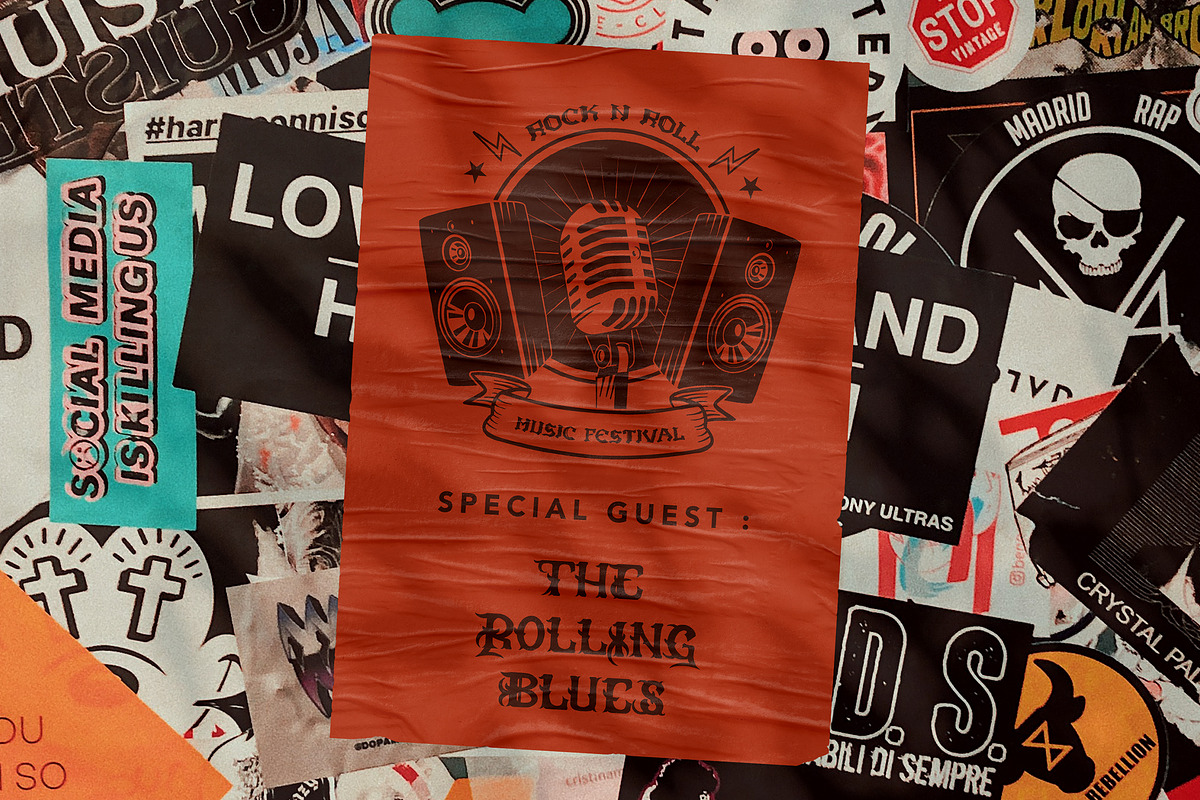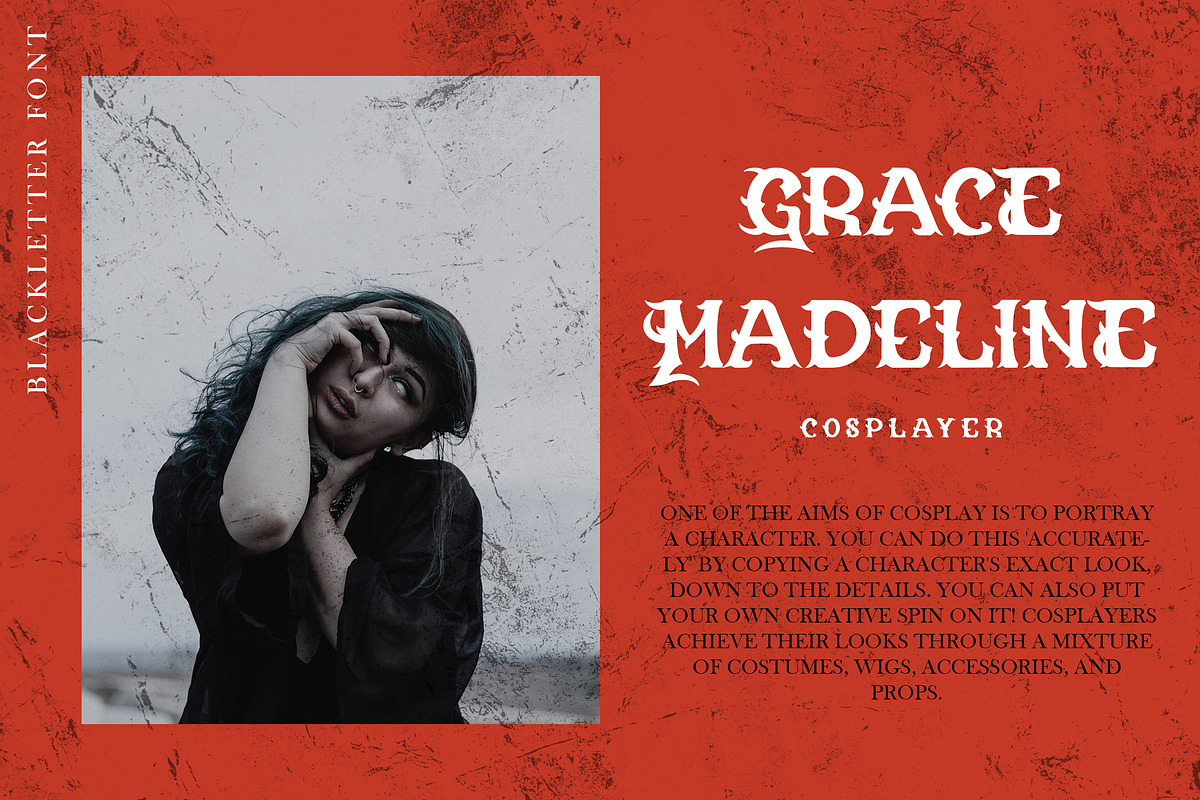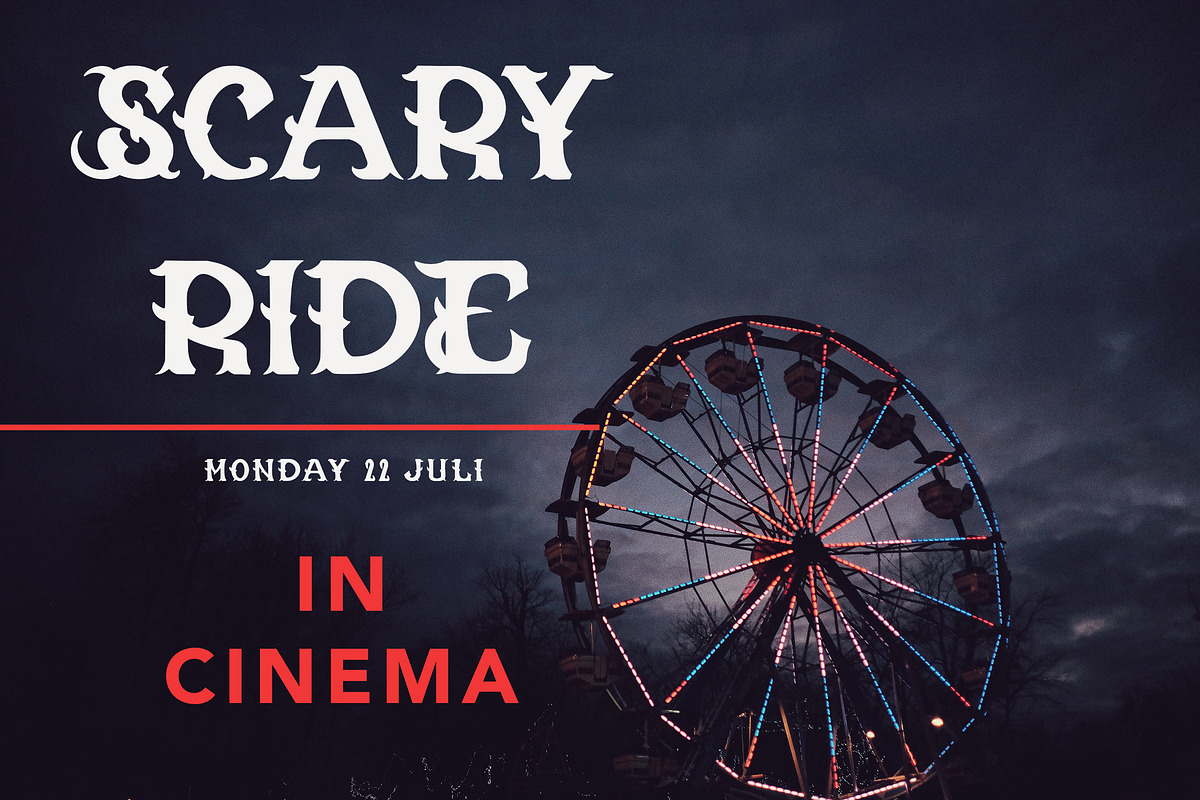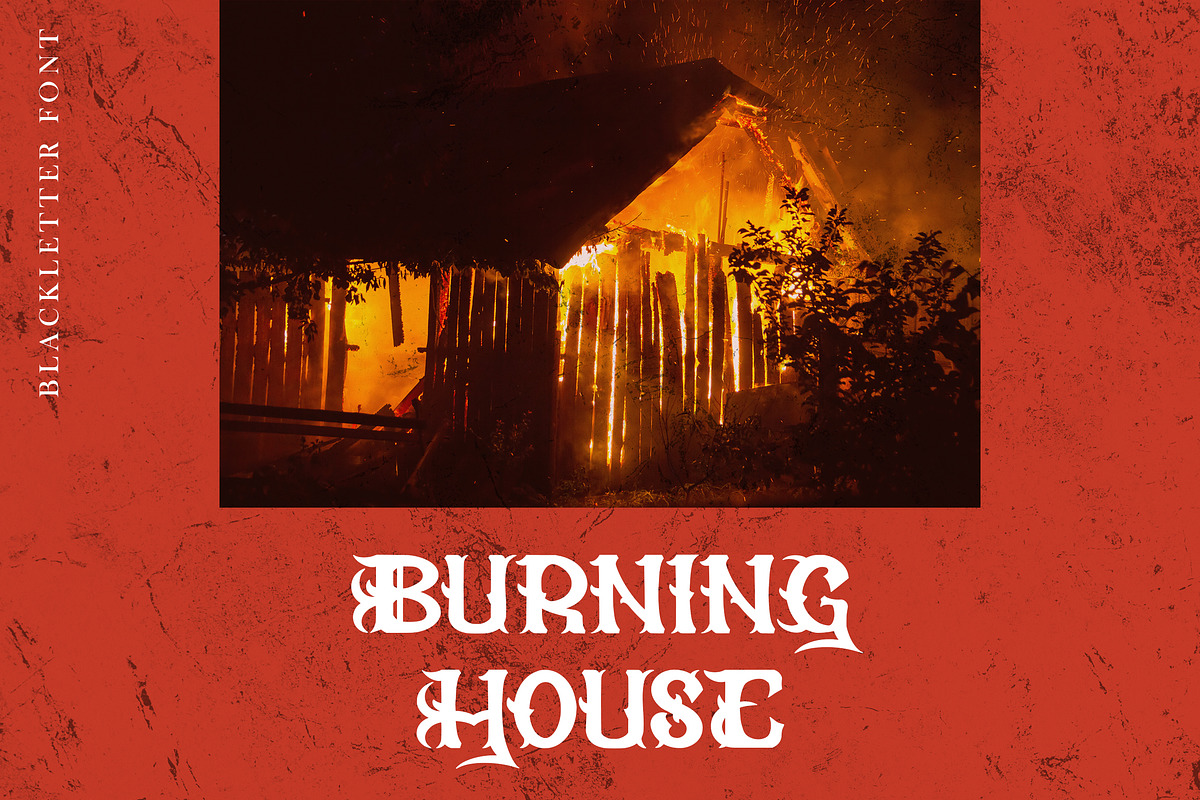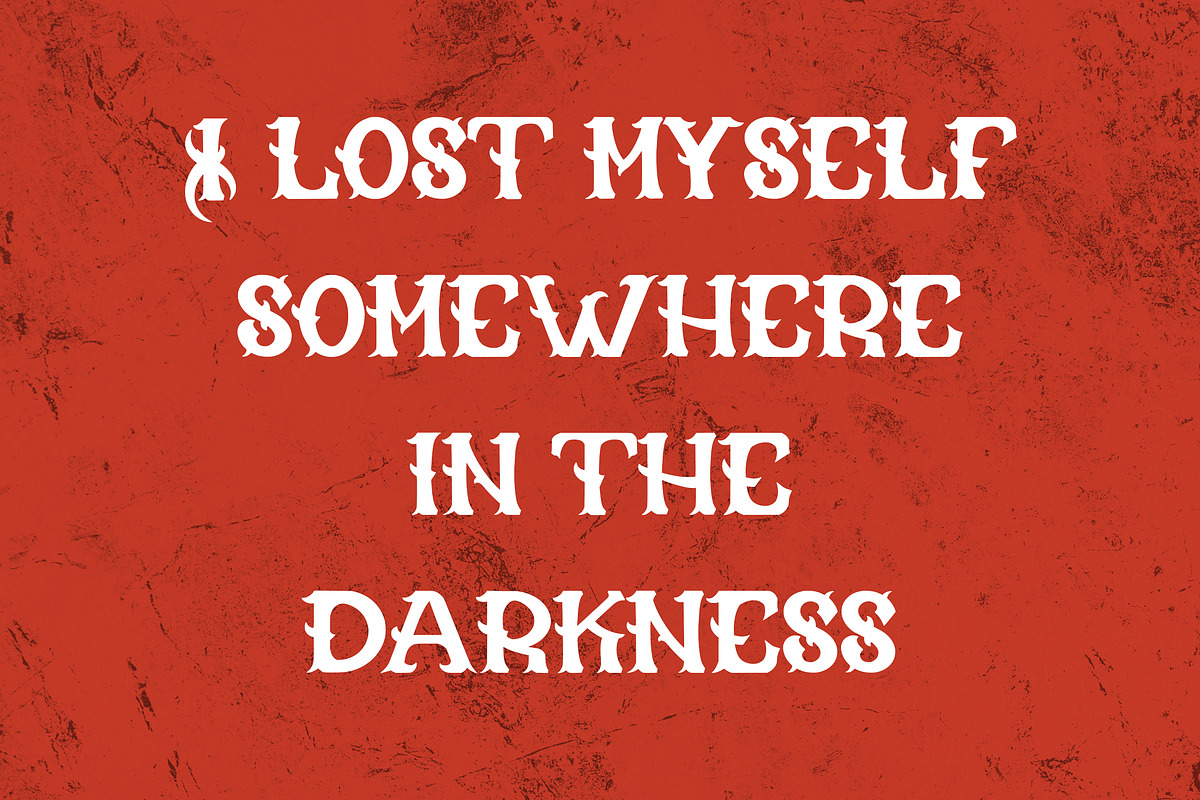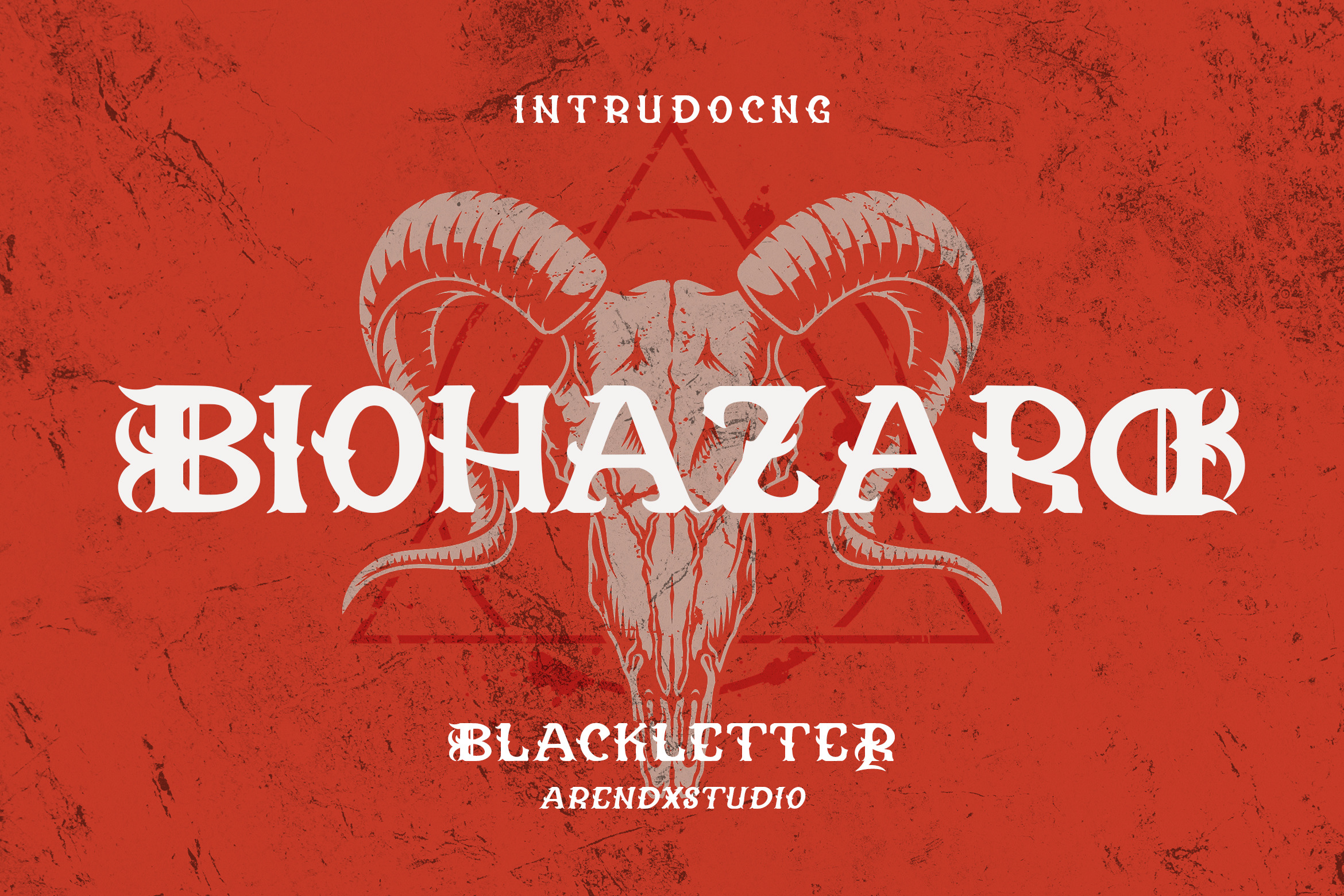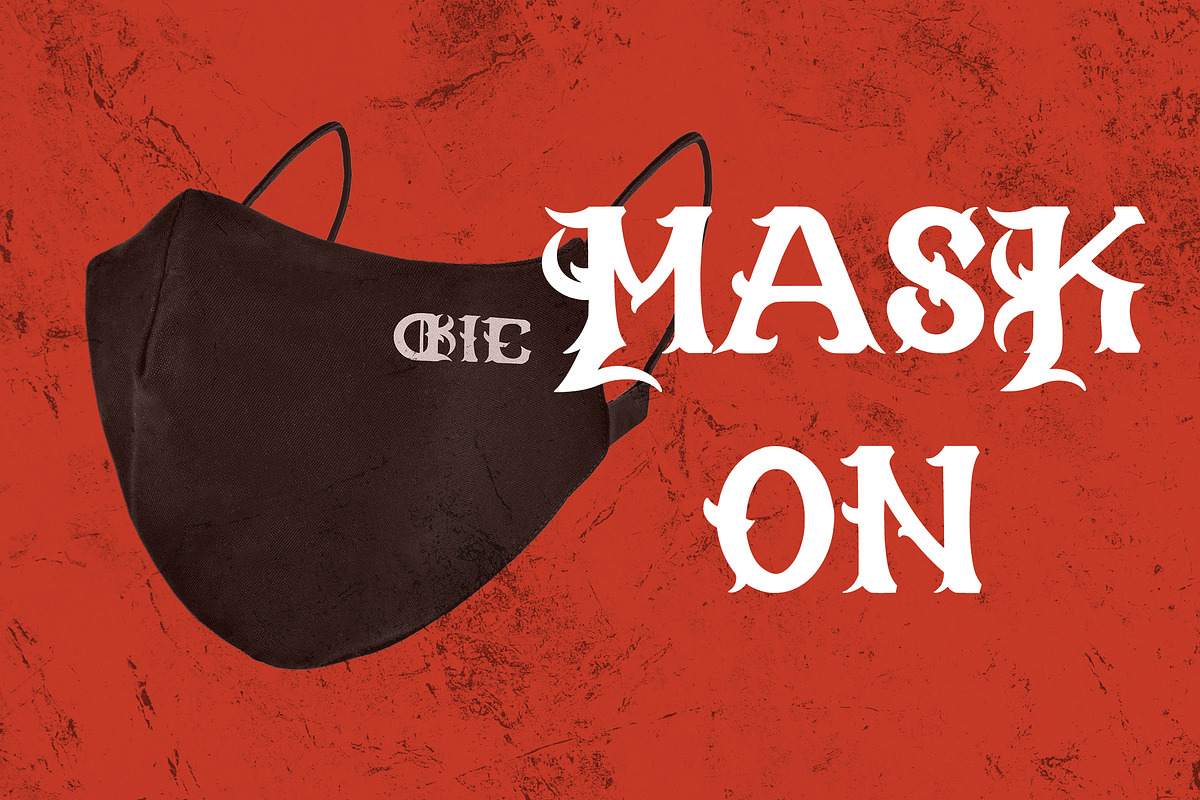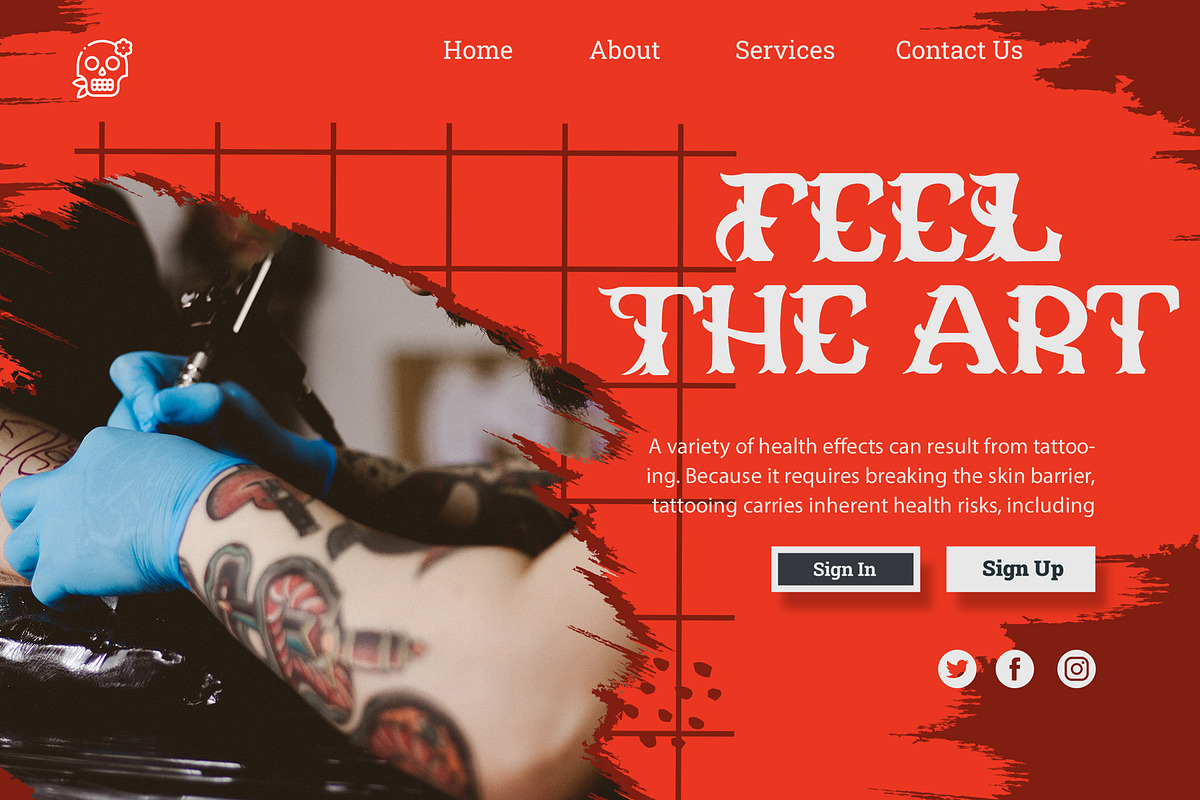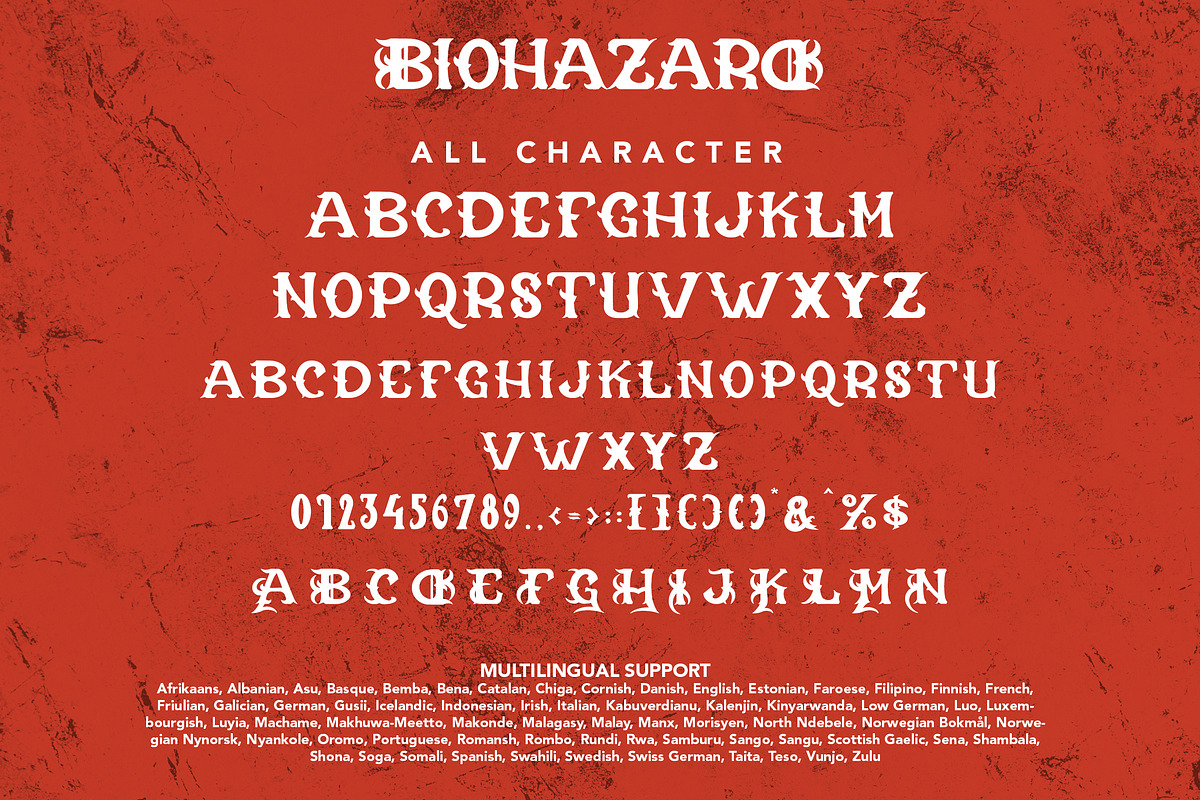
Biohazard - Blackletter Font
Biohazard - Blackletter Font is a display font that is inspired by ghotic style because its shape is very unique and is perfect for any project that you will use with this theme.
Biohazard came with opentype features such stylistic alternates, stylistic sets & ligatures good for logotype, poster, badge, book cover, tshirt design, packaging and any more.